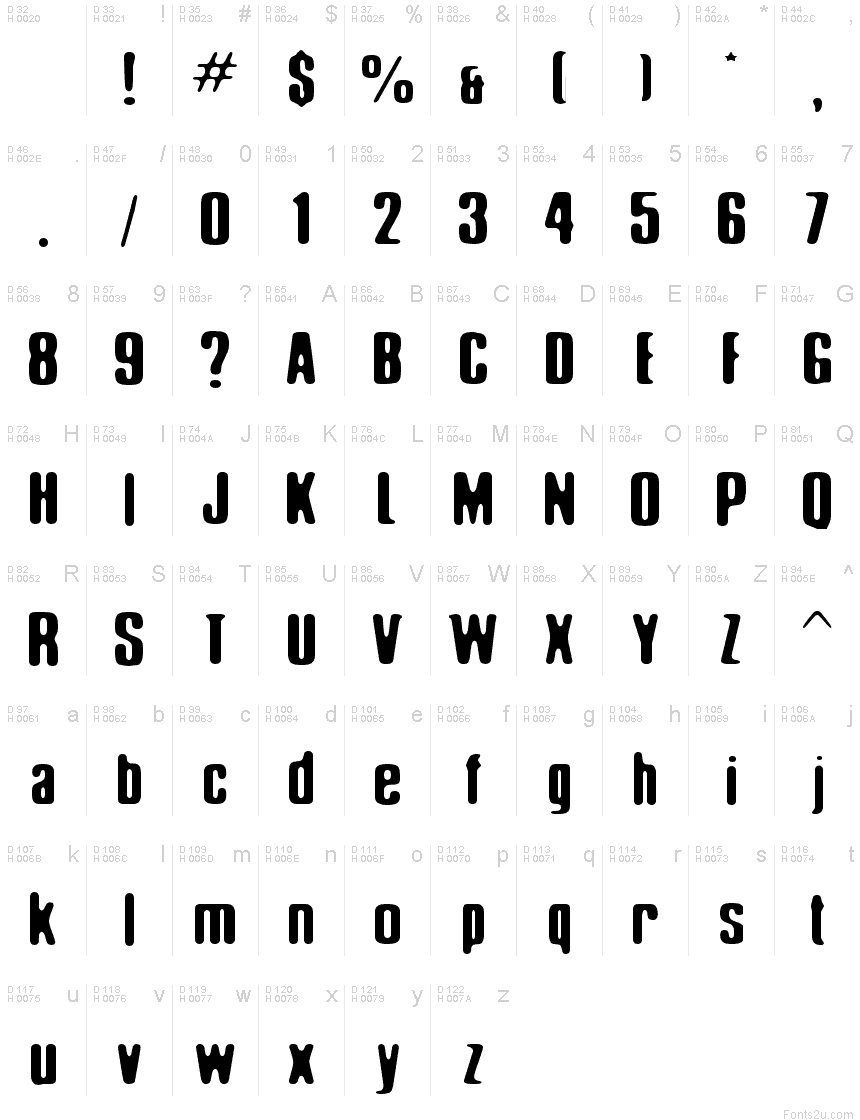
Elliot_Swonger 2
Elliot Swonger 2 font is a free eroded display typeface in the Elliot Swonger family, with chunky, upright letters that look like they’ve been worn smooth by years of use. The tall, compressed shapes and soft, blobby edges give it a strange mix of goofy and gritty, as if a vintage cartoon logo was printed too many times and started to melt on the page.
This free font shines on gig posters, horror‑comedy titles, DIY zines, sticker designs, event flyers, and bold YouTube thumbnails where you want loud, slightly chaotic energy. Using Elliot Swonger 2 in oversized headlines and pairing it with a clean geometric sans for small text keeps the texture punchy while the message stays readable.